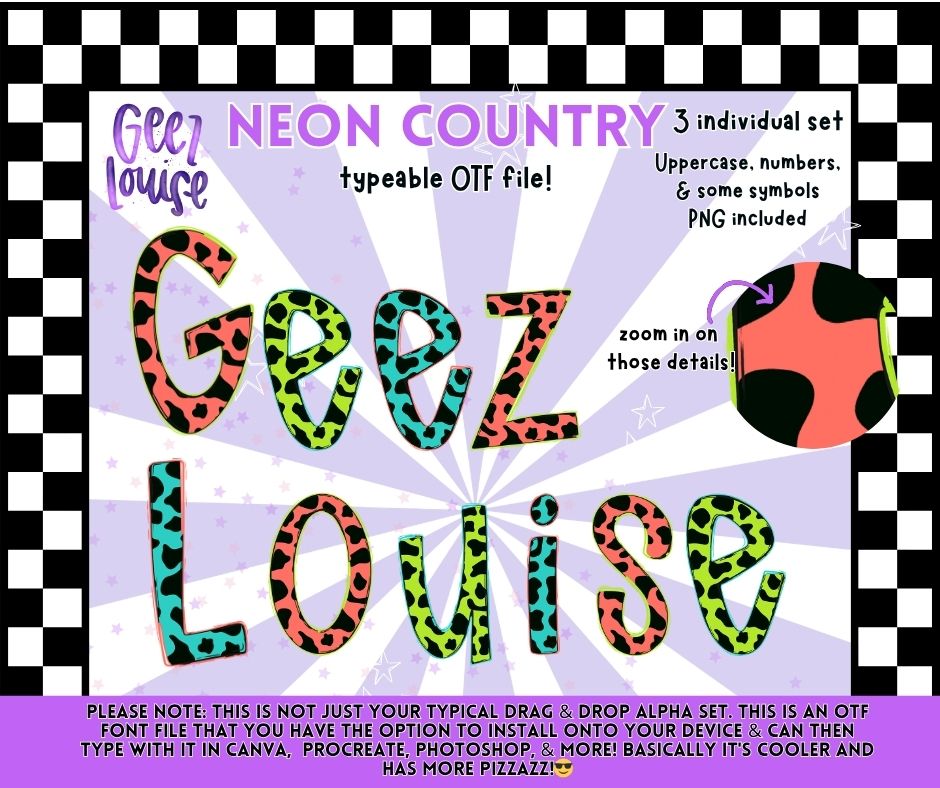
Neon Country OTF Font + PNG Alpha Set | Typeable Leopard Font | Uppercase, Numbers & Symbols
Turn your designs all the way up ⚡🐆
This Neon Country OTF alpha set is a typeable font file (yes… you can actually TYPE with it 👀) plus PNG versions for extra flexibility. Bold leopard patterns with neon vibes make this perfect for standout designs.